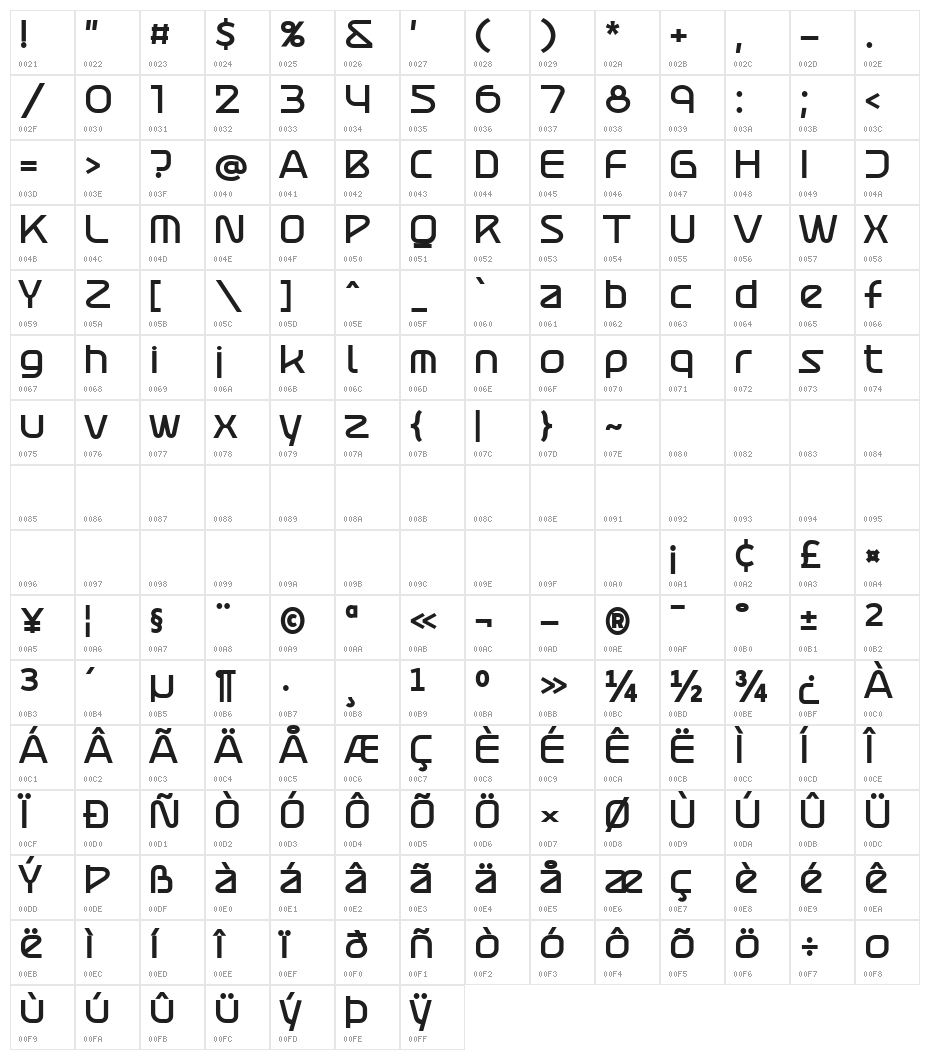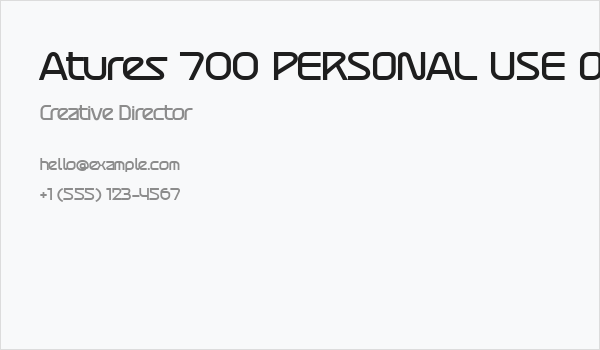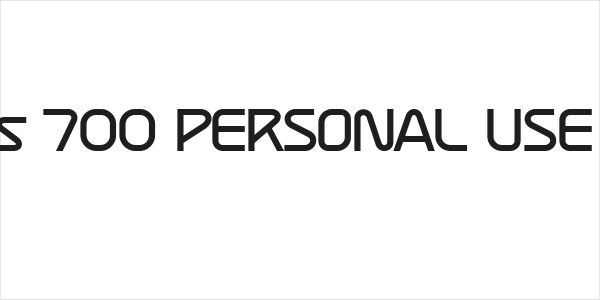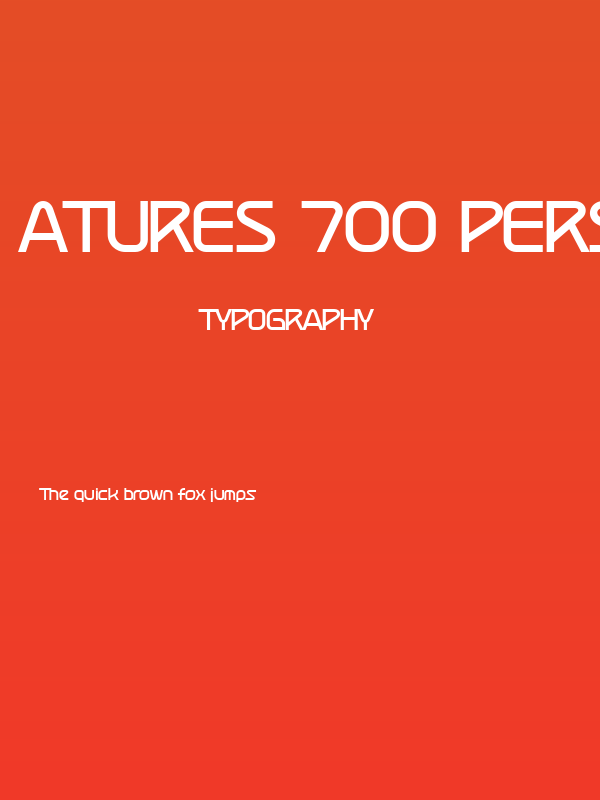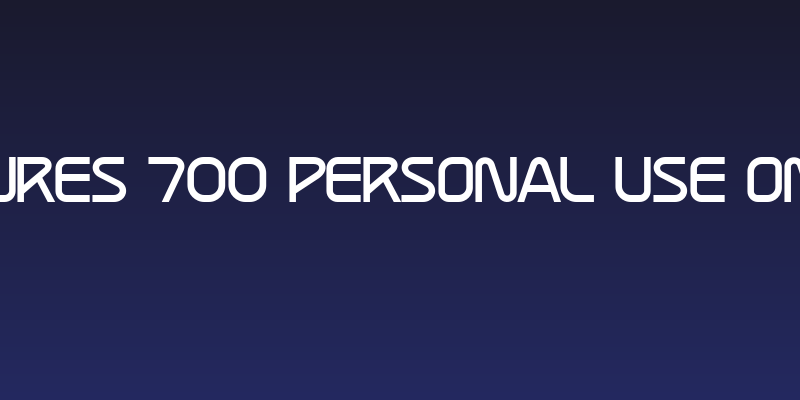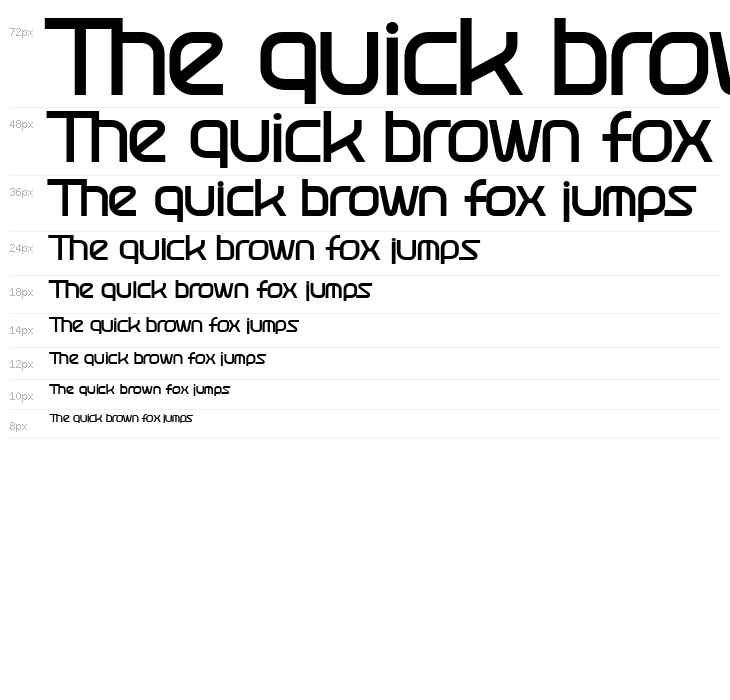
Atures 700 PERSONAL USE ONLY Font
Atures 700 PERSONAL USE ONLY Description
This font features a modern, geometric design with clean, bold lines and a futuristic aesthetic. The characters are constructed with a consistent stroke width, giving it a uniform appearance. The uppercase and lowercase letters share a similar structure, enhancing readability while maintaining a distinct style. The numerals and special characters are designed to complement the alphabet, ensuring a cohesive look across all text elements. Its unique style makes it suitable for projects that require a contemporary and innovative feel.
Use CaseHeadlines, Logos, Digital Interfaces
Proposed ProjectsIdeal for technology branding, modern advertising, digital interfaces, and innovative product packaging.